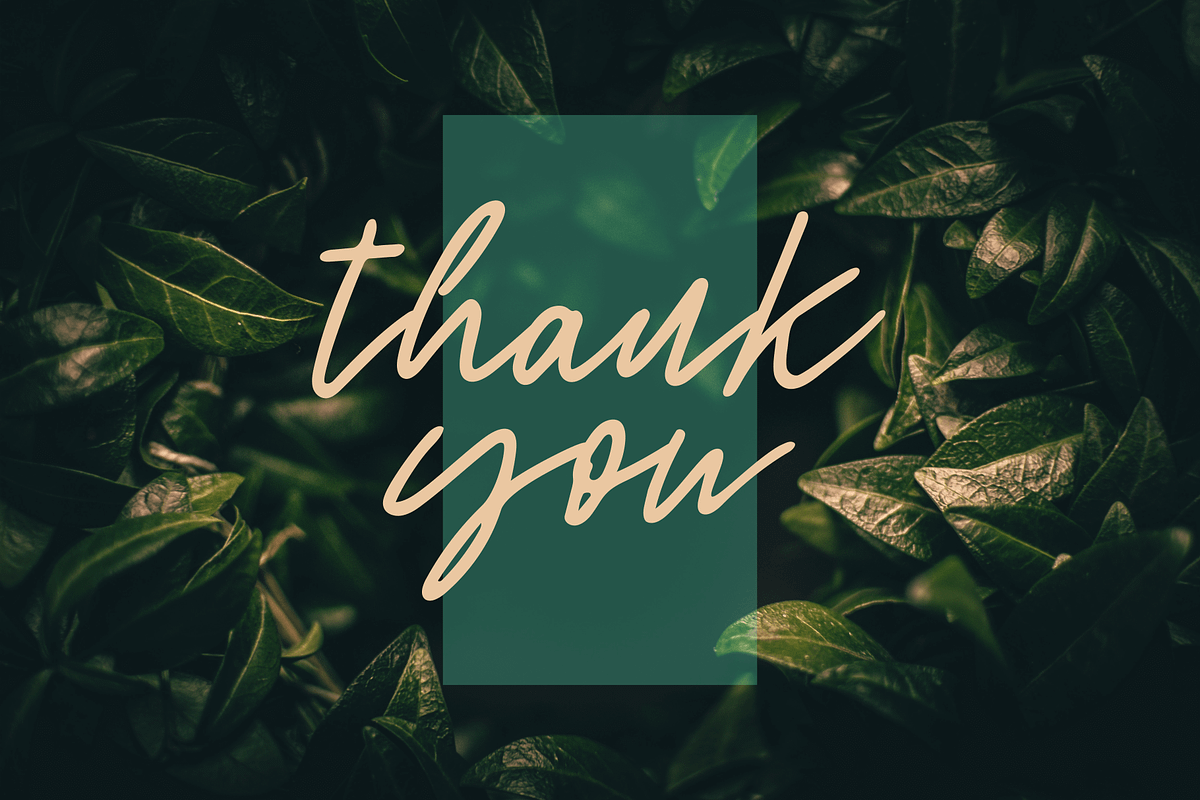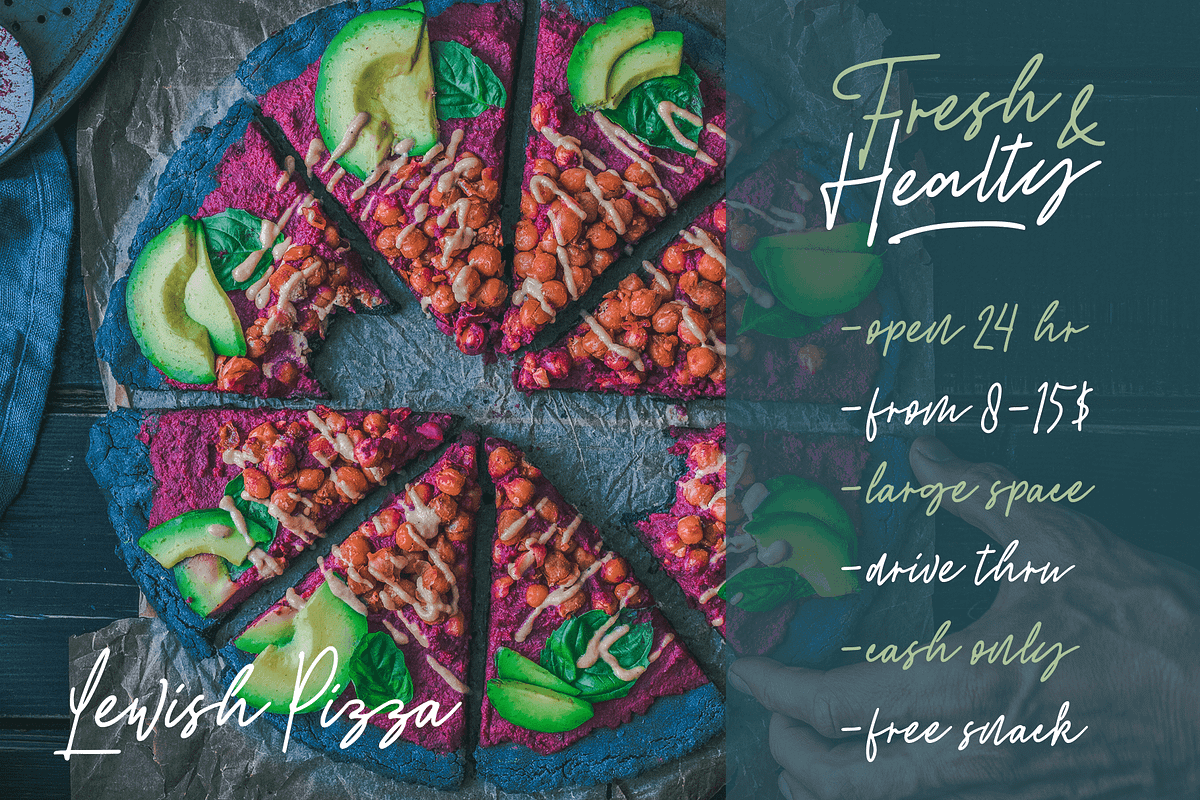
Rattem Hullax
Introducing Rattem Hullax , a signature typeface. Handwritten with ballpoint pen feels to it. Feels organic to your design needs.
WHAT INSIDE
- Ligatures ✔
- Stylistic Alternates ✔
- PUA Encoded ✔
MULTILINGUAL ACCENT
ŁłŽžŠŒšœŸÀÁÂÃÄÅÆÇÈÉÊËÌÍÎÏÐÑÒÓÔÕÖØÙÚÛÜÝÞßàáâãäåæçèéêëìíîïðñòóôõöøùúûüýþÿ